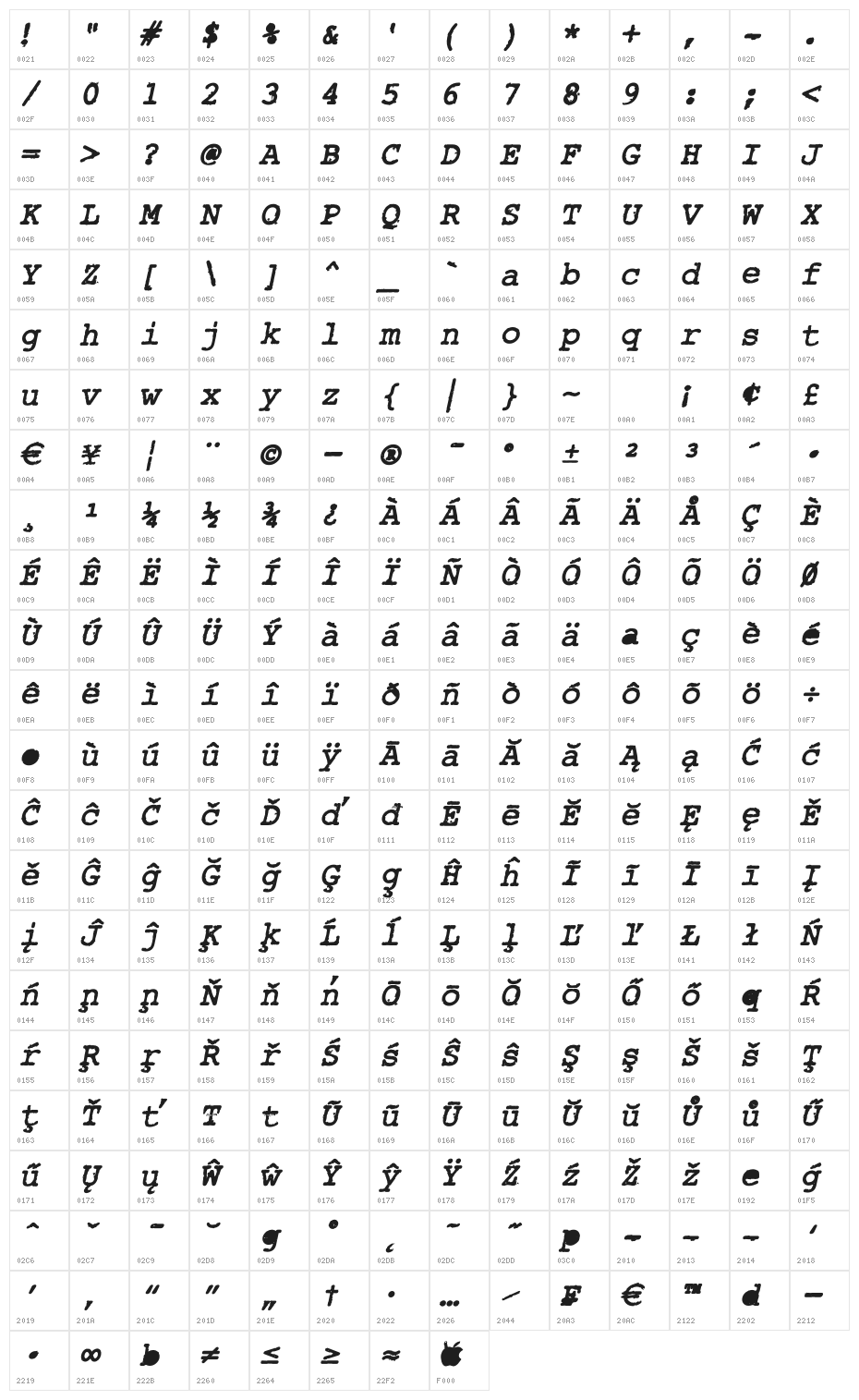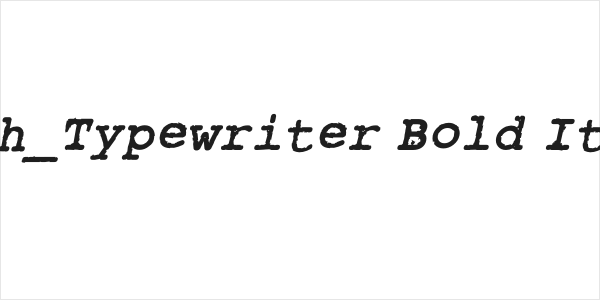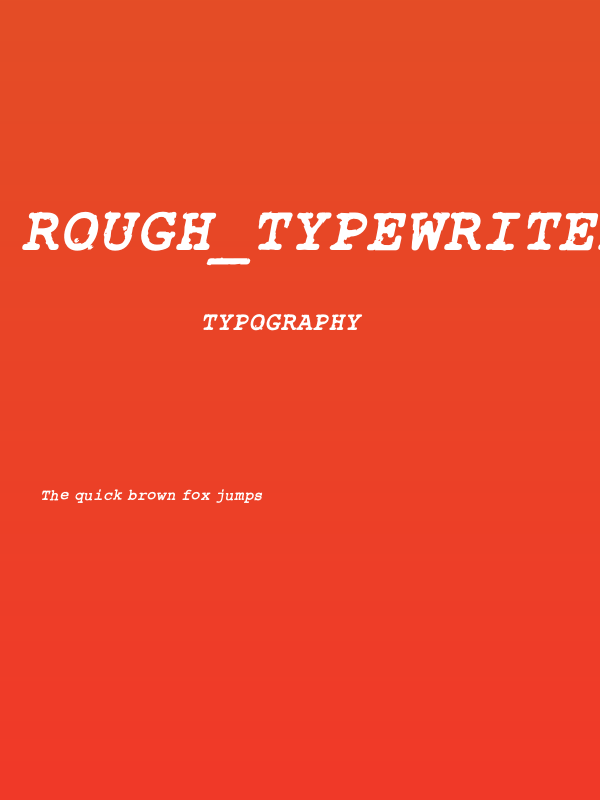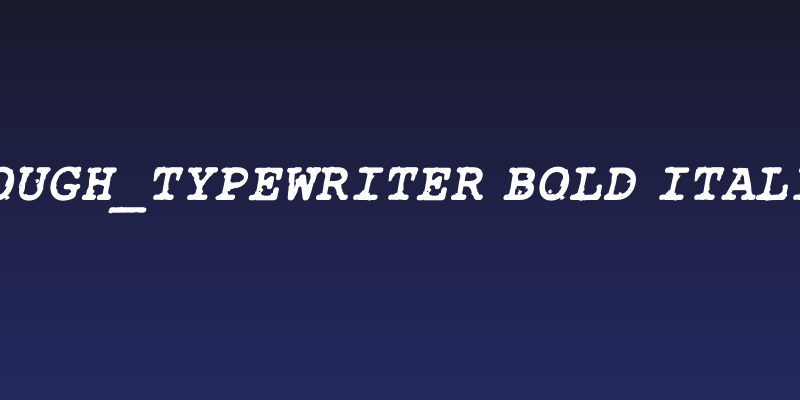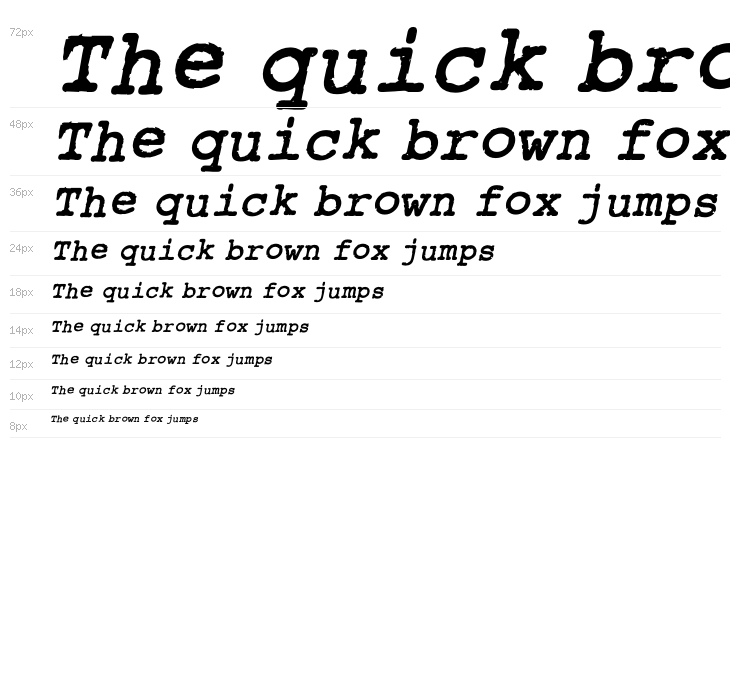
Rough_Typewriter Bold Italic Font
Rough_Typewriter Bold Italic Description
This typeface exudes a vintage, mechanical charm reminiscent of old typewriters. Each character is bold and italicized, with a rough, textured appearance that suggests wear and tear, adding to its nostalgic appeal. The letters are slightly slanted, enhancing the italic style, while the boldness ensures strong visibility. The texture gives an impression of ink spread, typical of traditional typewriter output, creating a unique, authentic look. The font maintains a consistent weight across all characters, with rounded edges and a slightly uneven baseline, enhancing its hand-crafted feel. The numbers and special characters follow the same stylistic cues, ensuring uniformity throughout the typeface.
| Proposed Projects | Ideal for vintage-themed designs, retro posters, typewriter-inspired projects, and any creative work requiring a nostalgic touch. |